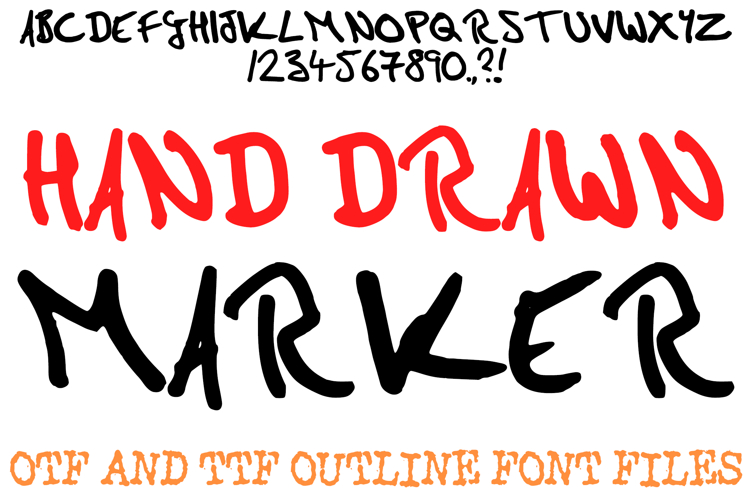
Hand Drawn Marker Font Lettering Ink ABC Typography OTF
Elevate your designs with the effortless, organic feel of the Hand Drawn Marker Font! This slender, fine-point display alphabet captures the casual energy of a quick ink sketch, featuring tall, thin letterforms and a uniform stroke width. It is an ideal choice for minimalist digital planners, "day-in-the-life" social media captions, boutique packaging, and clean, modern branding.
The "skinny" silhouette of each character offers a sophisticated yet approachable aesthetic that mimics natural handwriting. Whether you are labeling a digital journal or creating understated stickers for a lifestyle brand, the Hand Drawn Marker Font provides a clear, legible, and artisan touch to every word.
Tall and Slender Structure: The elongated characters provide a modern, stylish look that saves horizontal space while remaining highly legible.
Fine Point Ink Texture: The thin, uniform lines simulate the precise tip of a felt marker for a clean and professional finish.
Organic Flow: The slight variations in the hand-inked terminals give your text an authentic, human feel that digital fonts often lack.